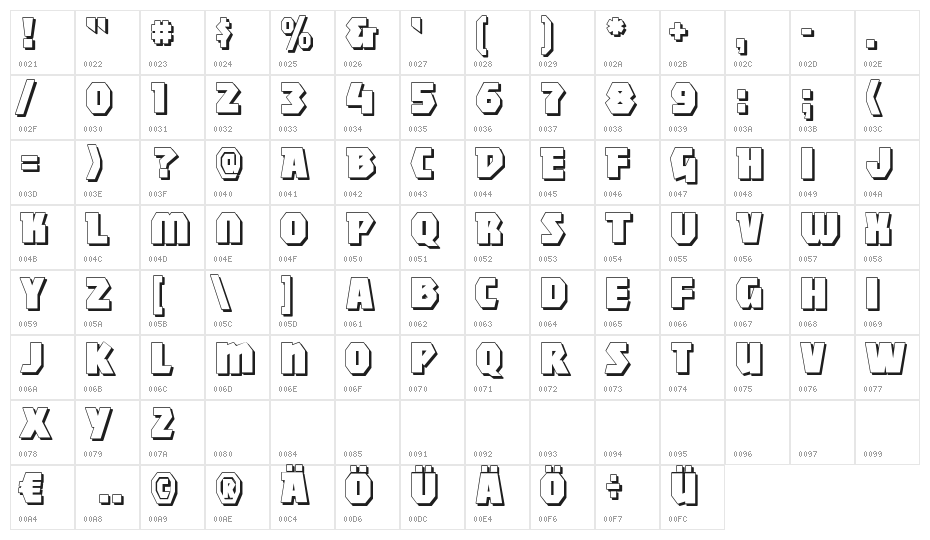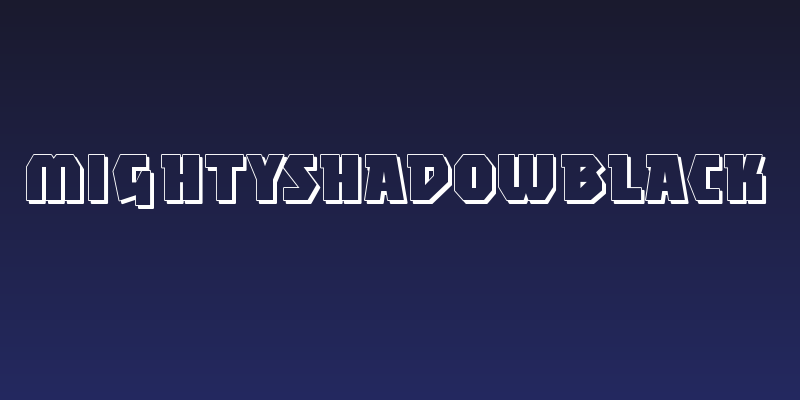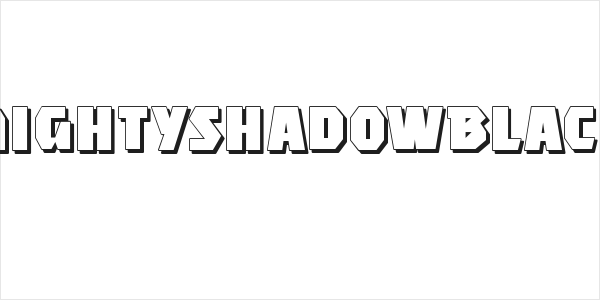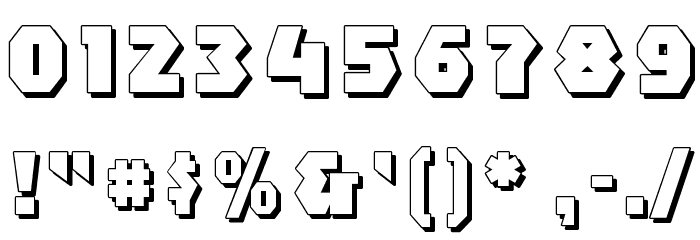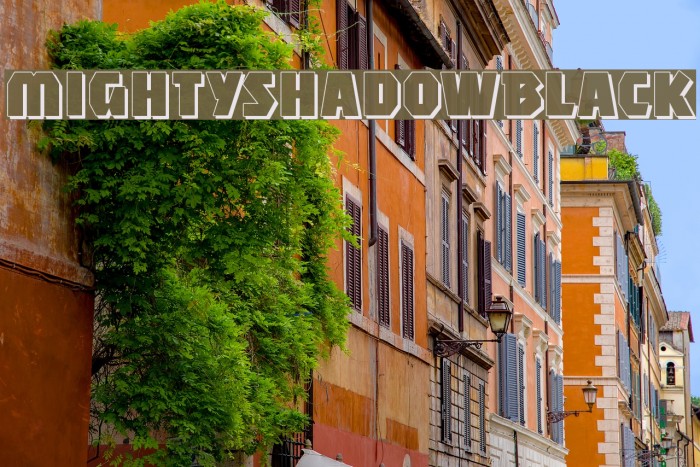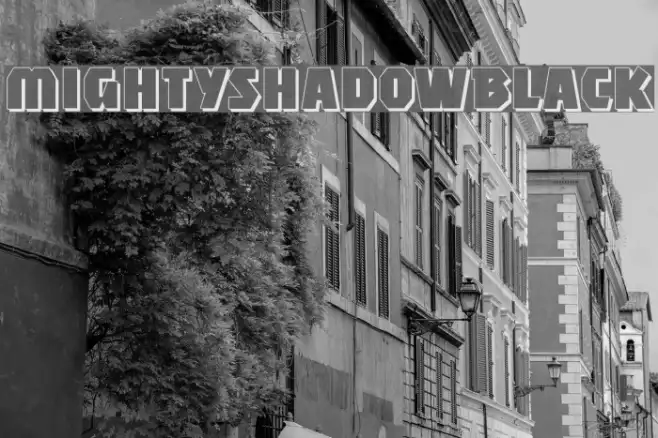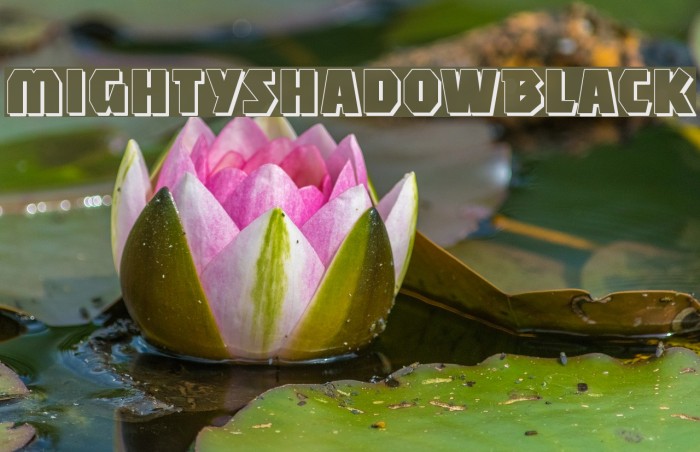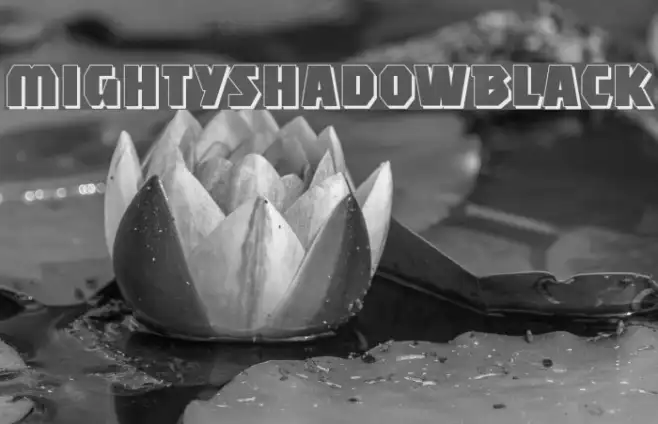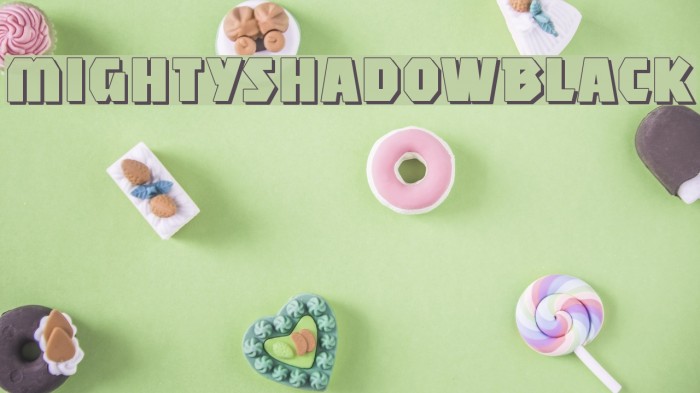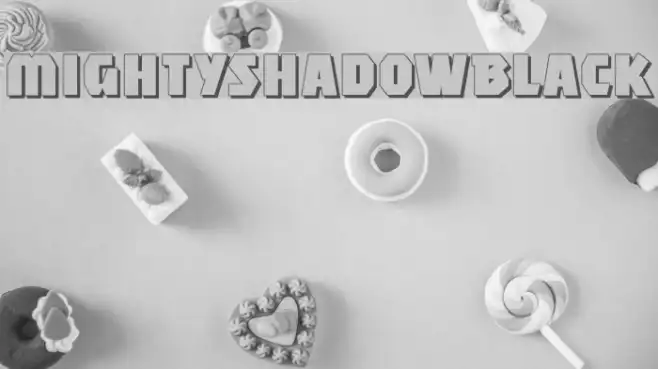
MightyShadowBlack Font
MightyShadowBlack Description
This font features a bold, three-dimensional design with a strong shadow effect that gives it a striking and impactful appearance. The characters are uppercase and have a blocky, geometric style, which is enhanced by the thick outlines and the shadow that creates a sense of depth. The font's design is consistent across letters, numbers, and special characters, maintaining a cohesive look. The boldness and shadow make it ideal for attention-grabbing headlines or titles. Its playful yet robust style can add a dynamic element to any design project.
| Proposed Projects | Ideal for posters, logos, video game graphics, and any design requiring a bold, eye-catching typeface. |